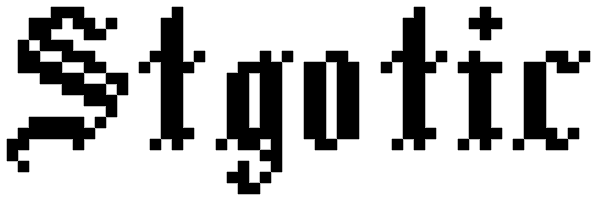
Stgotic
Stgotic, designed in 2006, was the first digital font designed by Daniel Hernández. It is a blackletter typeface designed for low resolution screen devices. Stgotic was designed to be seen at 8 pts (and multiples of 8). In the year 2006, it was...